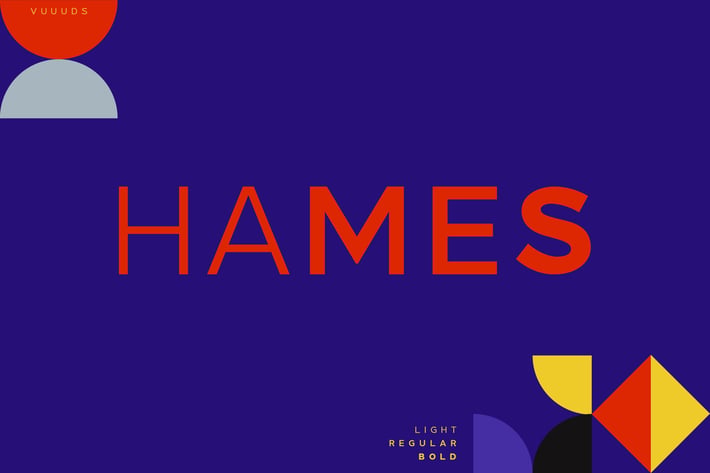
Hames Font
vuuuds
Hames is modern sans serif font with 3 different weight. Every single letters have been carefully crafted to make your text looks superbly awesome. Sans serif style this font will perfect for many different project ex: wesbite, blog, quotes, blog header, big title, poster, wedding, branding, logo, fashion, apparel, letter, invitation, stationery, etc.